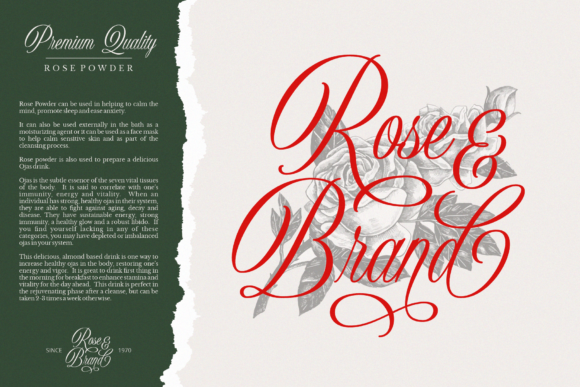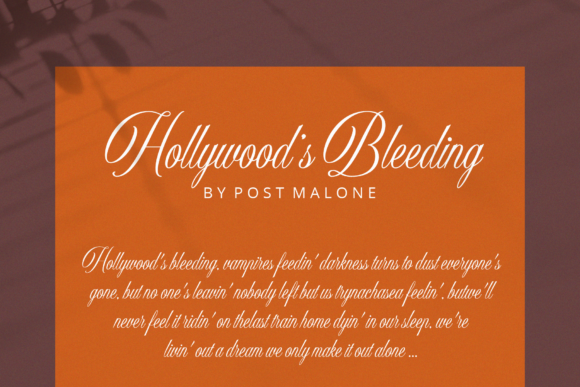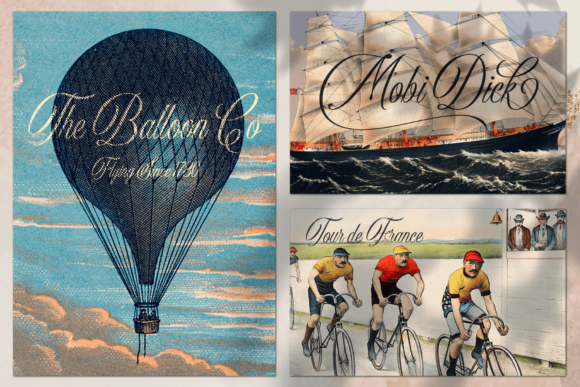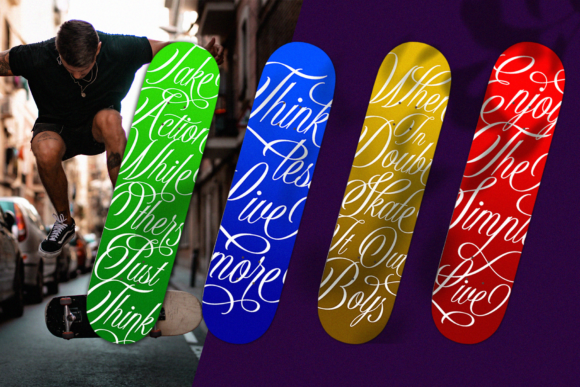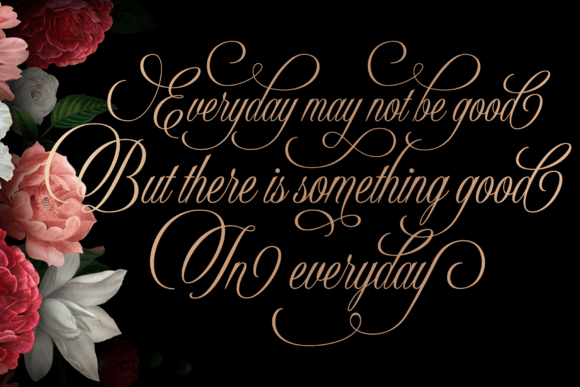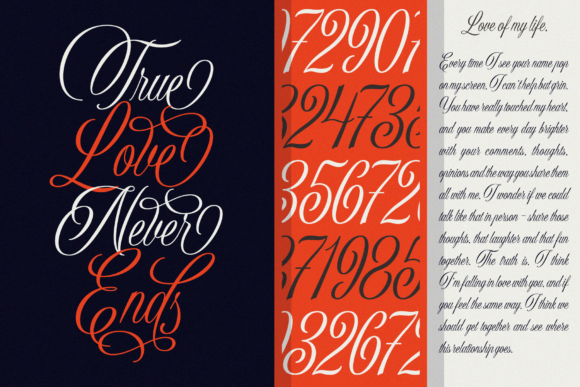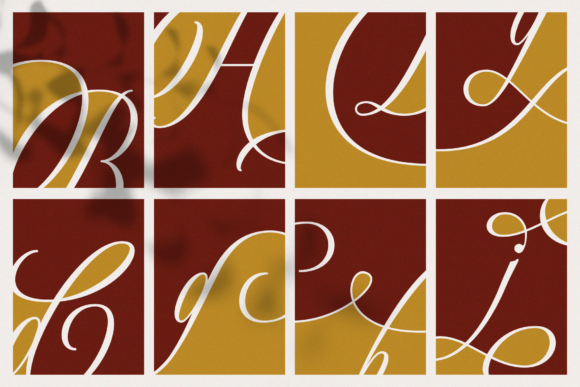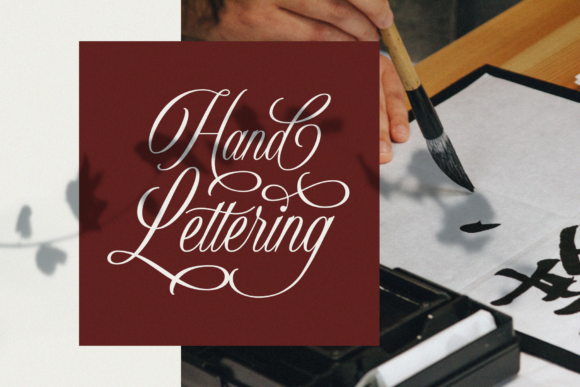
HomeScript FontsSholaria Font Script Fonts Sholaria Font FacebookXPinterestWhatsApp Sholaria Font Poster 2 Sholaria Font Poster 3 Sholaria Font Poster 4 Sholaria Font Poster 5 Sholaria Font Poster 6 Sholaria Font Poster 7 Sholaria Font Poster 8 Sholaria Font Poster 9 About Sholaria Font Sholaria is a clean and luxurious script with incredible swashes. Fall in love with this extraordinary font! DOWNLOAD ON CREATIVE FABRICAThis font is sold and delivered by Creative Fabrica. Font Canyon may earn a commission if you buy through this link. People also explored Hobla Font Garden Grove Silent Noise Sporhe Font Belvir Font Palengue Font Bafaco Font Dezamora Font Outshine Font 406 0 TagsSholaria Font Previous articleRyna FontNext articleBathagor Font LEAVE A REPLY Cancel reply Comment: Please enter your comment! Name:* Please enter your name here Email:* You have entered an incorrect email address! Please enter your email address here Website: Save my name, email, and website in this browser for the next time I comment. Personal Use Free Gunplay Personal Use Free Read more about this font Silver Bullet Personal Use Free Read more about this font Sefiya Personal Use Free Read more about this font Engebrechtre Personal Use Free Read more about this font BLOG Where to Buy American Fonts Online in 2024 Where to Buy American Fonts Online: The Ultimate Guide for 2024 Looking for the perfect American font to elevate your design projects? You're in the... Fonts That Capture the Spirit of New York City Free vs Paid Fonts: Why Investing in Premium Fonts Is Worth It Transform Your Website: Elevate Your Typography with 7 Best Web Font Generators